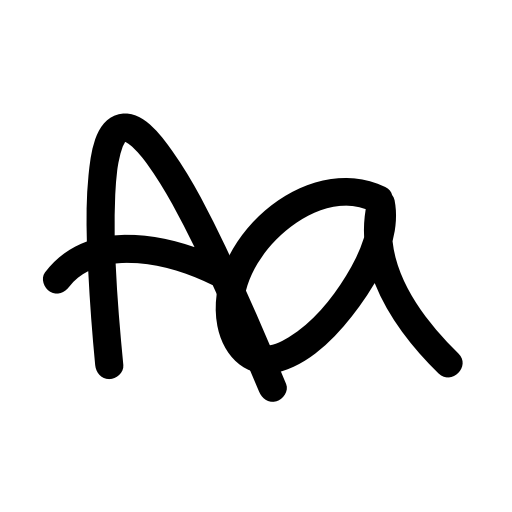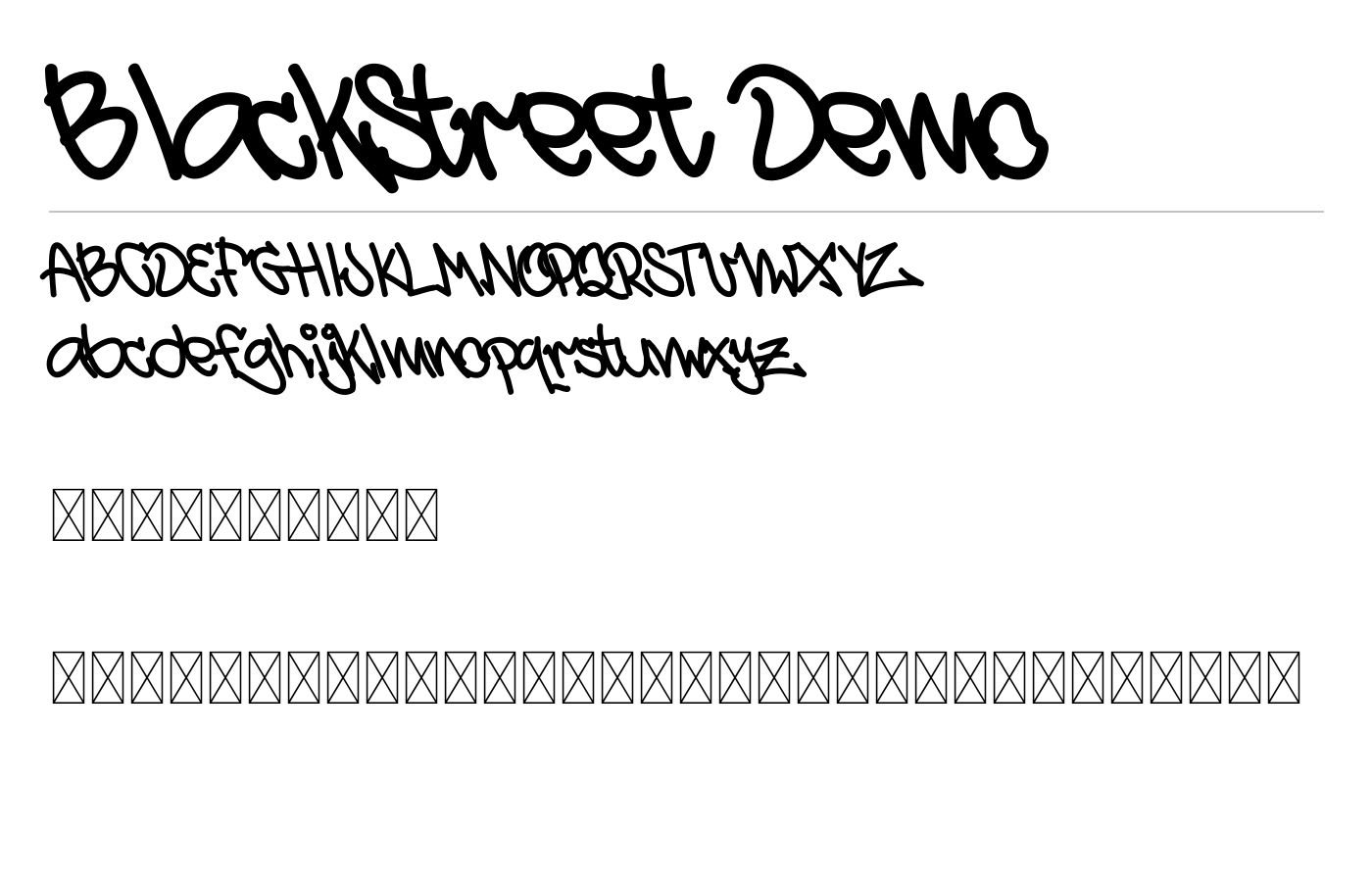
BlackStreet Demo is a playful, casual handwritten font characterized by its bold, irregular strokes and energetic style. It features a lively mix of upper and lowercase letters with a slightly condensed width and spontaneous, street-art-inspired letterforms, making it perfect for urban-themed designs, creative projects, and informal branding that seeks a fun, youthful vibe. This font works best in headlines, posters, and designs where a strong, expressive personality is desired.
BlackStreet Demo Font
About BlackStreet Demo Font